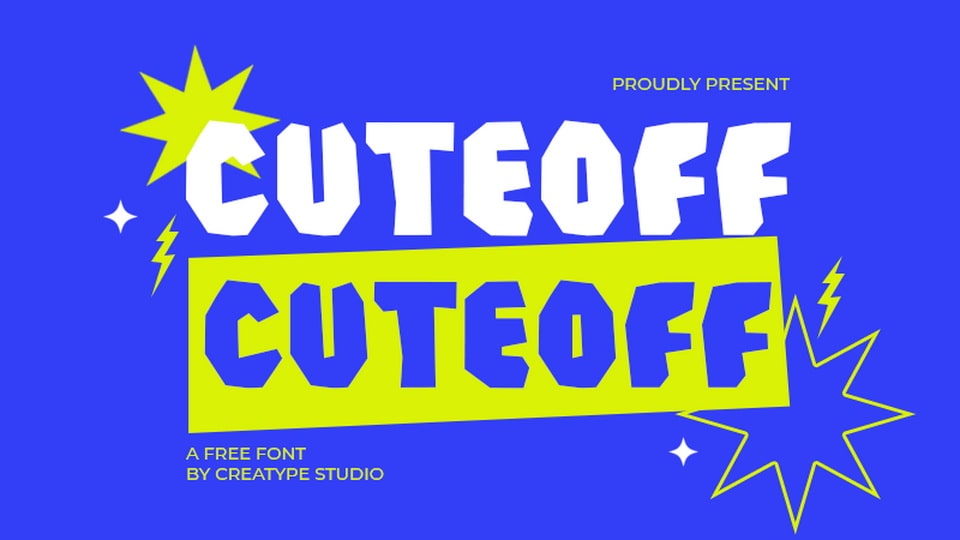
Download Cuteoff font, a playful and quirky display typeface that stands out with its unique cut-off letterforms, adding a sense of creative imperfection and charm to your designs.